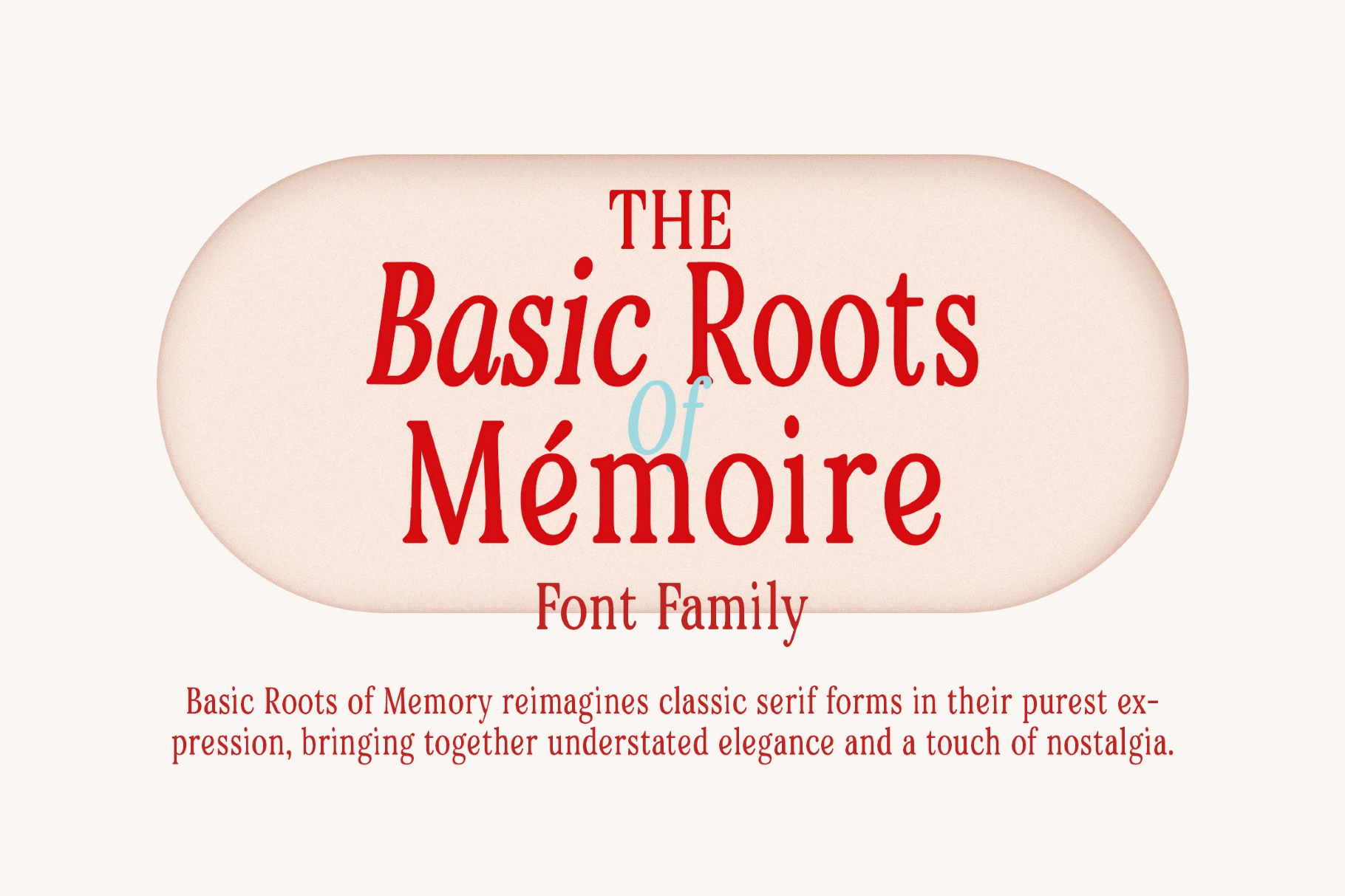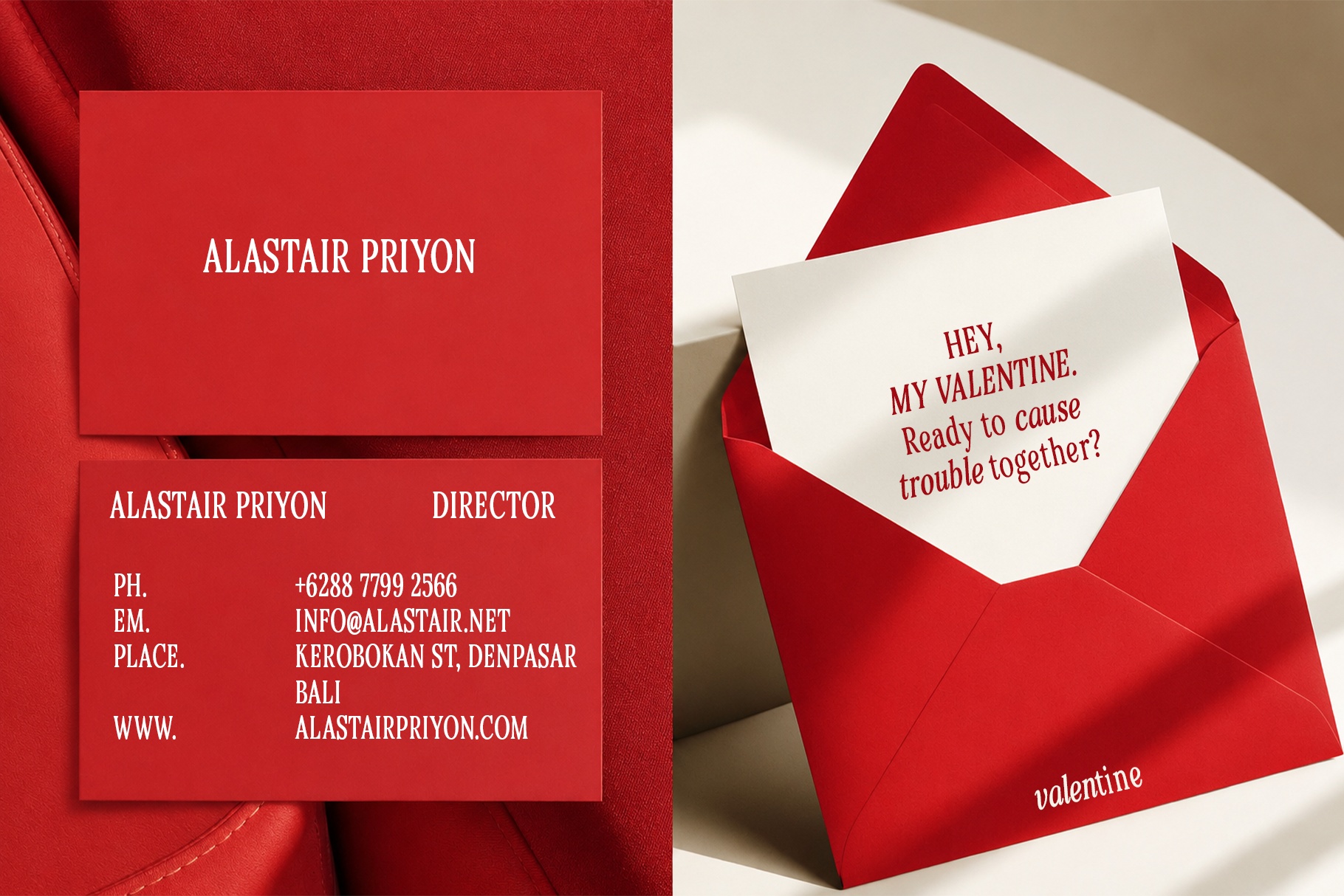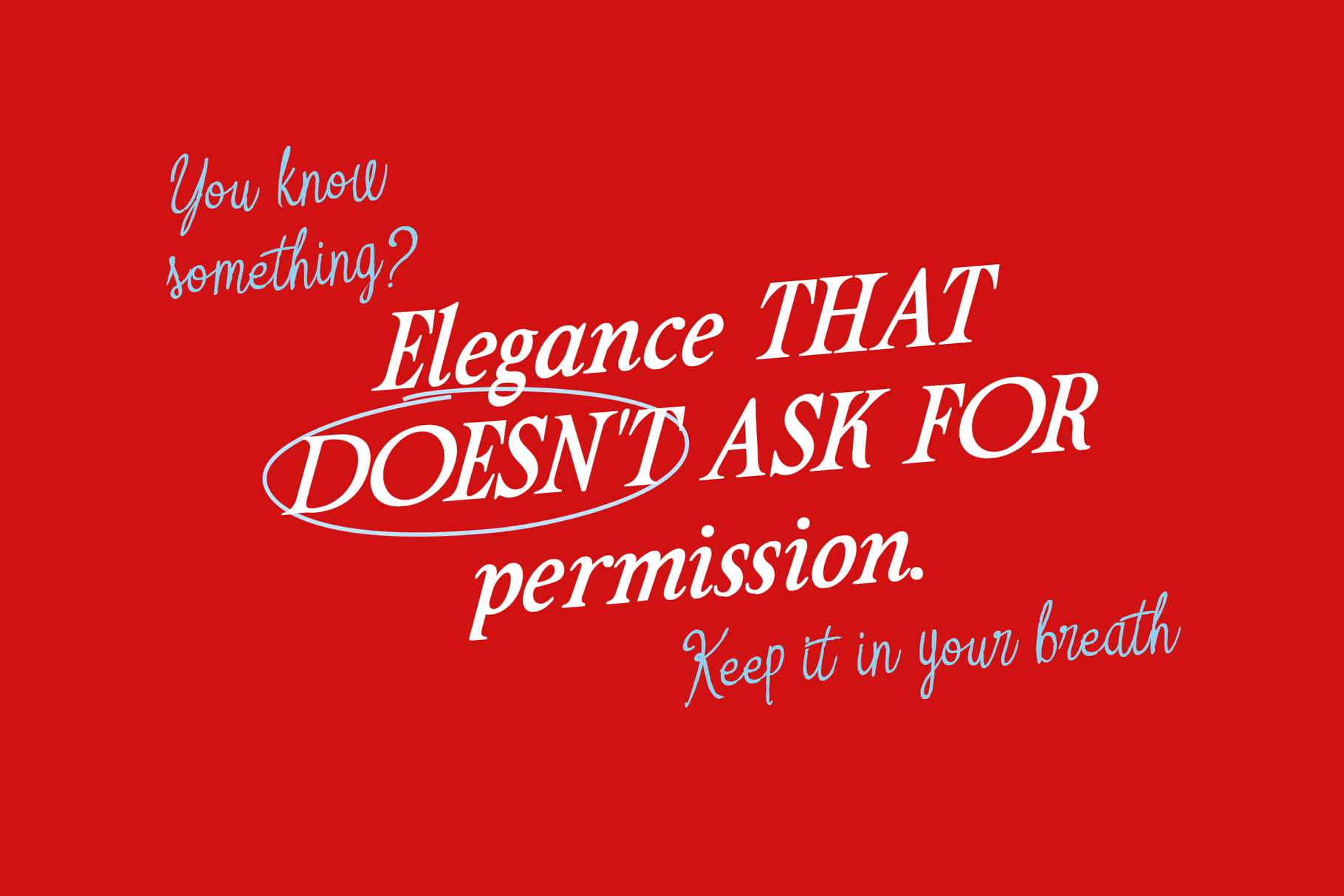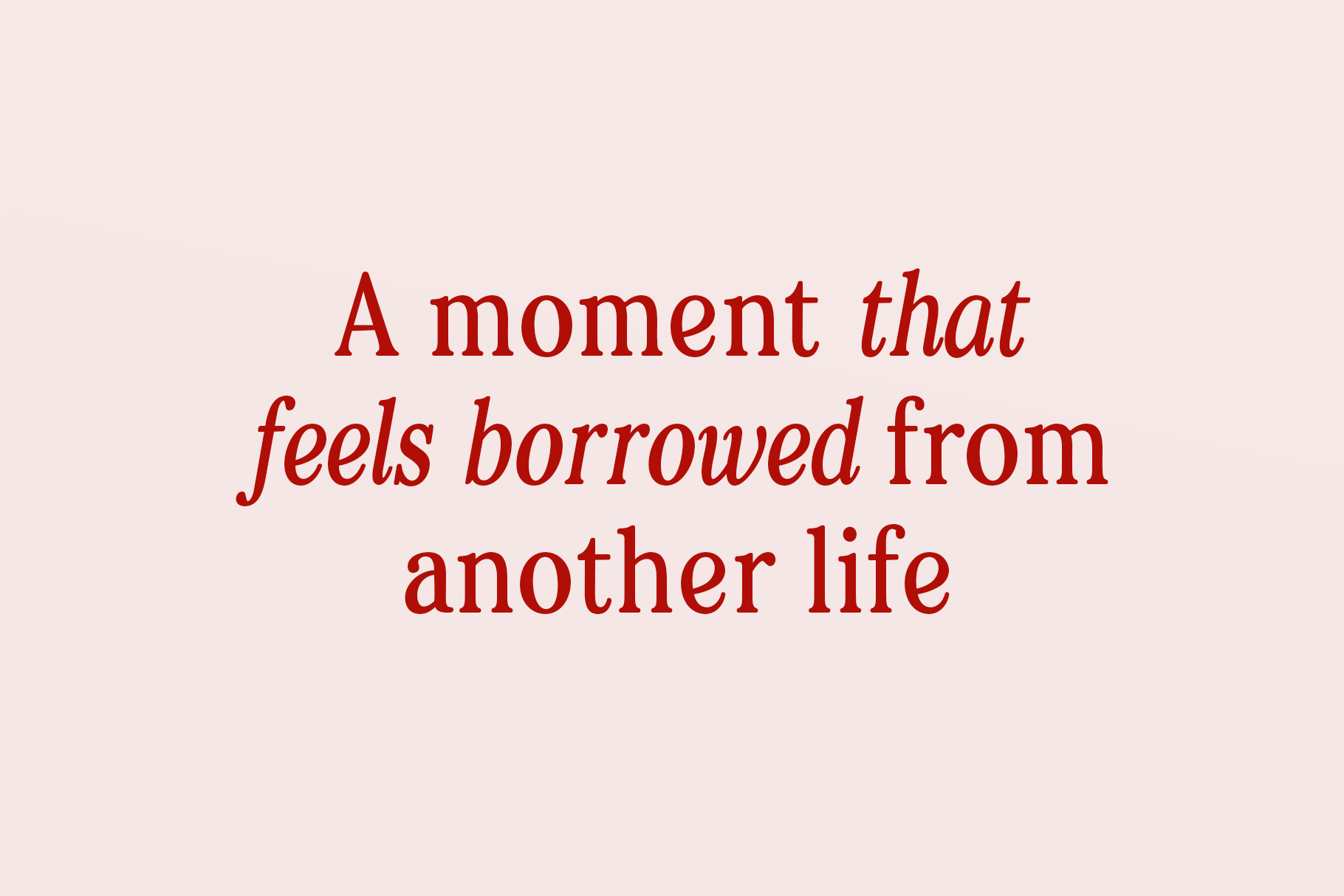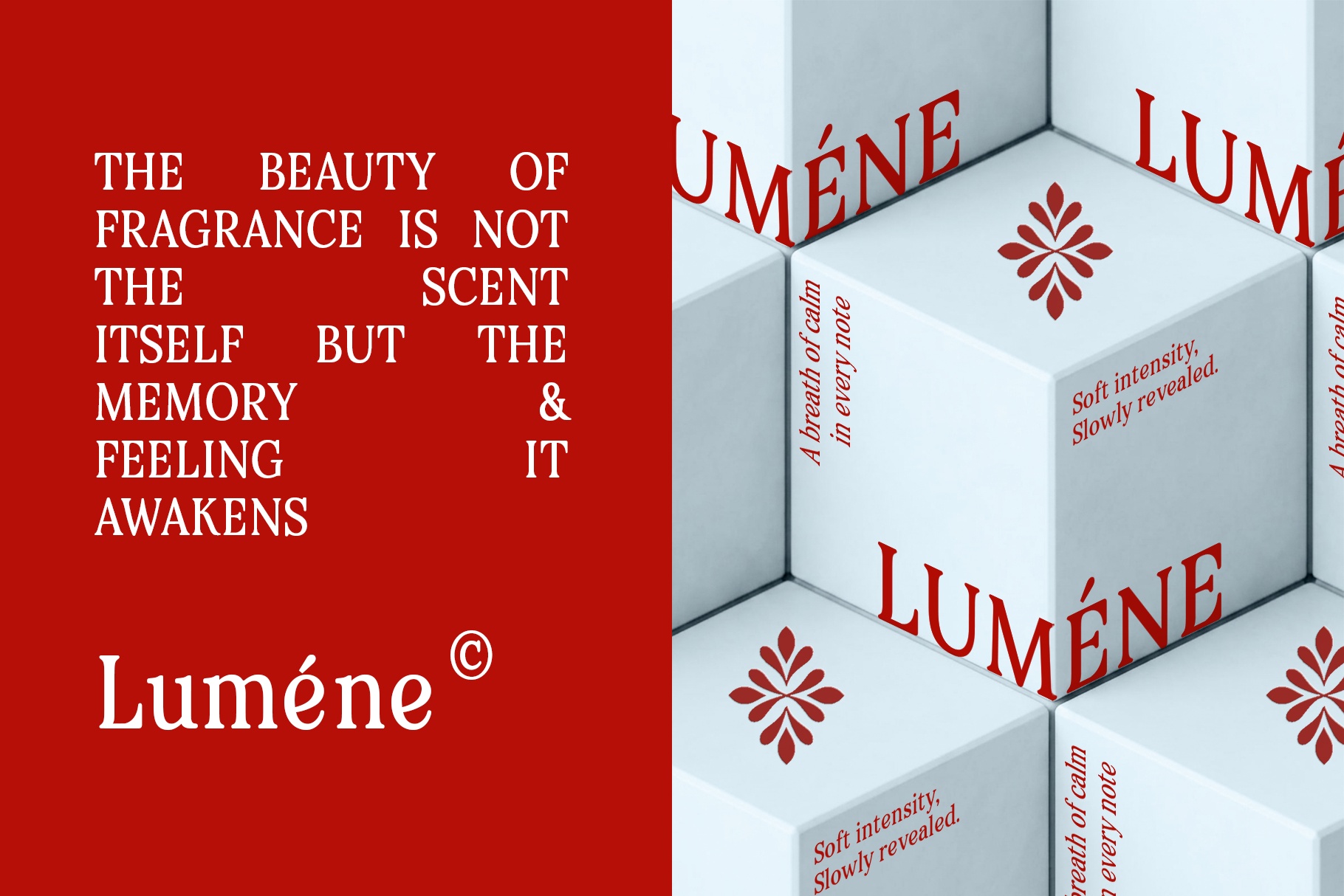
Basic Roots - Elegant Vintage Serif Font Family
Basic Roots
italic
Condense
italic Condense
Extra Condense
italic Extra Condense
Basic Roots has the quiet weight of a rediscovered letter — an elegant vintage serif font family with a softened oldstyle body, low contrast, and unhurried curves, paired with an italic companion that loosens into a hand-inked slant, so a single line can read as printed memory and personal handwriting in the same breath.
Basic Roots works best in packaging and editorial contexts that want a serif with a personal register instead of a corporate one. Use it for fragrance boxes and cosmetic labels, boutique and atelier branding, pull quotes and magazine spreads, business cards and wedding stationery, book covers and chapter headings, or quote cards and campaign graphics.
- 6 styles: Regular, Condensed, Extra Condensed, Italic, Italic Condensed, Italic Extra Condensed;
- Uppercase & lowercase;
- Numerals, punctuation & symbols;